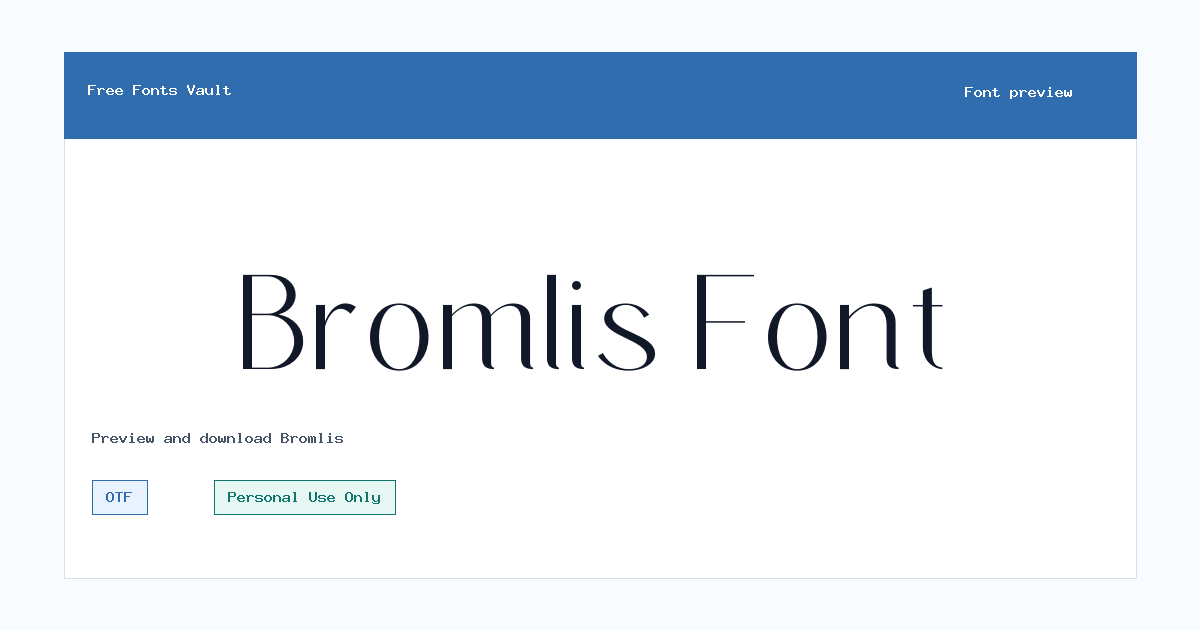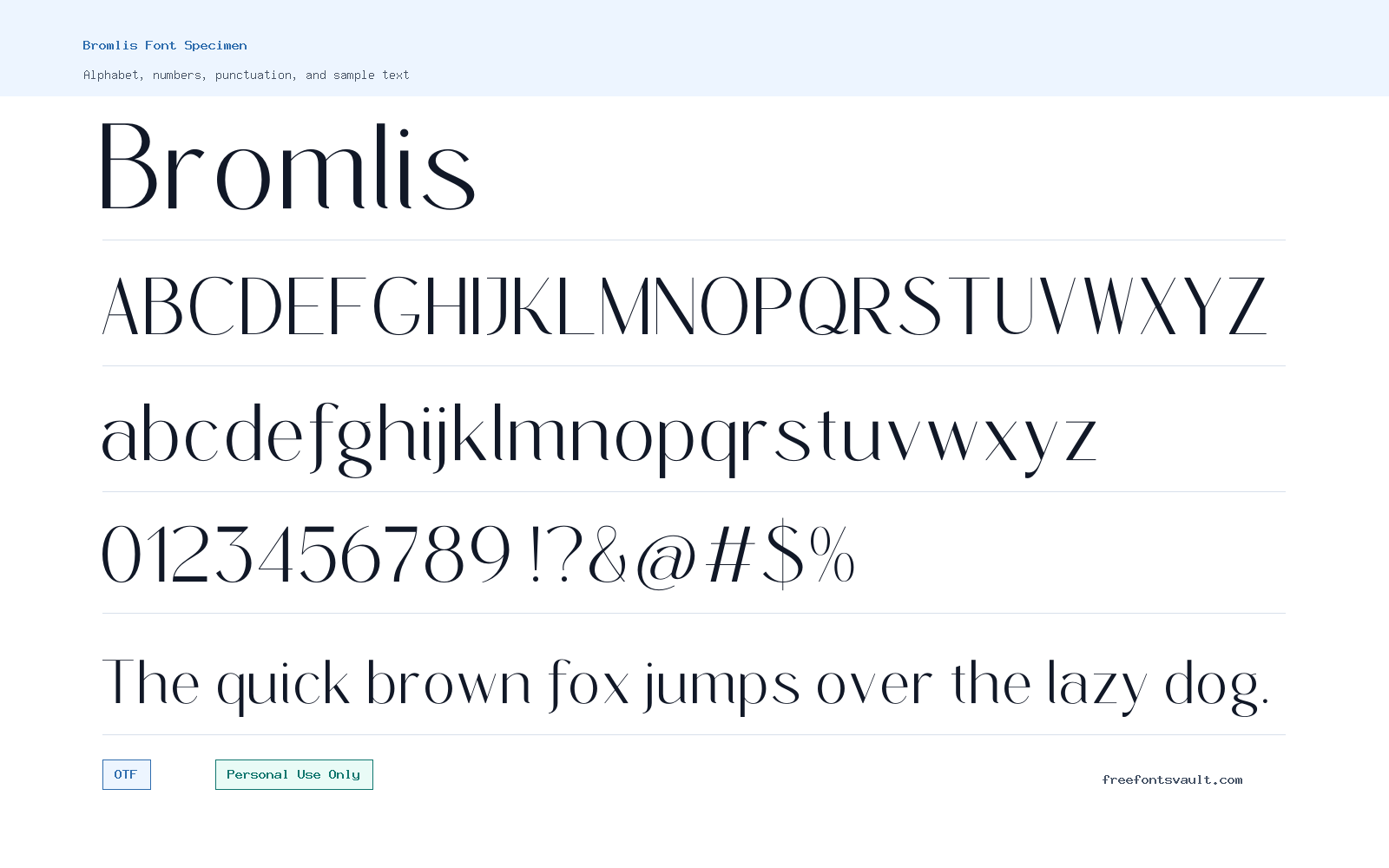
Bromlis
Bromlis font.
Bromlis is a clean sans serif font with a simple regular style, made for visitors who want a straightforward typeface to test in headings, short text, and design mockups.
About Bromlis Font
Bromlis keeps the focus on clear letter shapes rather than decorative detail. The available regular style makes it easy to try in many common design settings, especially when you need a neat sans serif look for titles, nameplates, social graphics, posters, or simple branding concepts. Because the font is offered as a single OTF file, the best way to judge it is to type your own words in the preview box and check the exact characters you plan to use. Look closely at uppercase letters, lowercase spacing, numbers, punctuation, and any special marks you need before downloading.
This font is best treated as a display-friendly sans serif for short and medium text. It can work well for clean headlines, labels, quote images, packaging drafts, event graphics, and portfolio mockups. For long paragraphs, test it at smaller sizes first, because a font that looks strong in a headline may feel different in body copy. If you use Bromlis in a layout, pair it with a quiet serif or a neutral sans serif for supporting text. Keep the pairing simple so the main type does not compete with the secondary font. Also check contrast, line height, and letter spacing in your own design tool, since those settings can change how polished the font feels.
- Simple sans serif style suited to previews, mockups, headings, and short text
- Clean headlines, poster titles, quote cards, and social media graphics
- Personal design mockups, portfolio experiments, labels, and presentation visuals
What style is included?
The listed style is the regular weight, shown as normal style with 400 weight.
What fonts pair well with Bromlis?
Use a restrained serif or a neutral sans serif for body text and captions. A simple pairing helps Bromlis stay clear when used as the main headline or display font.